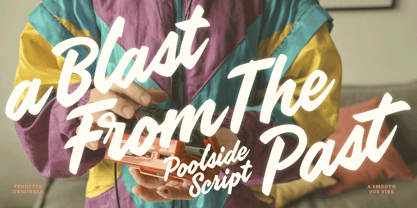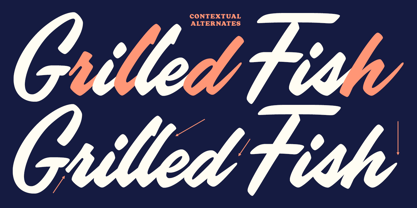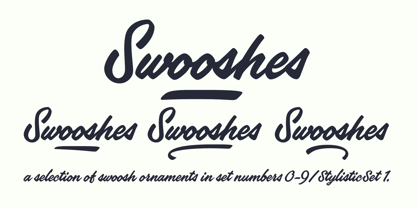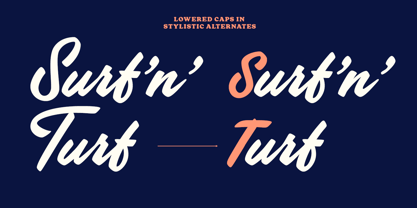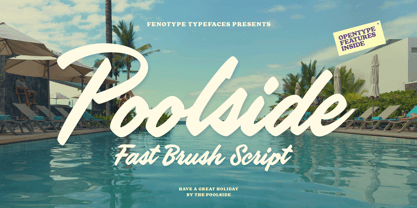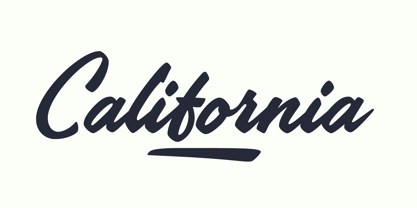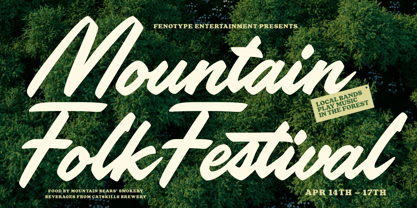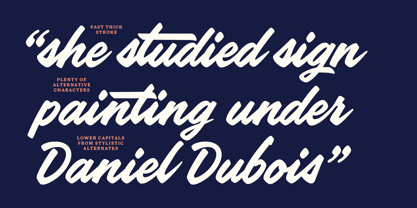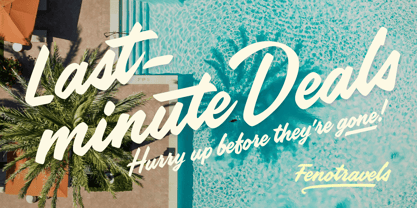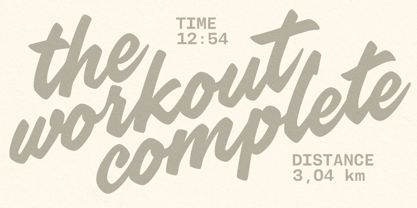
Poolside
by Fenotype
The Poolside Font Family was designed by Emil Karl Bertell and published by Fenotype. Poolside contains 1 styles. More about this family
Poolside is a smooth, angular, slightly rounded and straightforward brush script with low contrast. Poolside is equipped with automatic Contextual Alternates for a more natural aestethic, keep the feature on. In addition Poolside has Swash Alternates for capital letters, ampersand and certain lowercase letters and Stylistic Sets for even more alternates, especially for the character “t” with different sizes of the cross stroke. From Stylistic Set 01 you’ll also find a selection of swoosh -ornaments set in characters 0-9.
From Stylistic Alternates you’ll find lowered capital letters + alternate forms for certain lowercase letters.
Designers: Emil Karl Bertell
Foundry: Fenotype